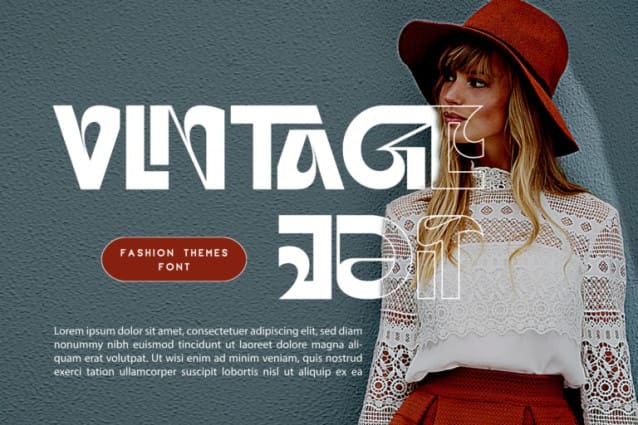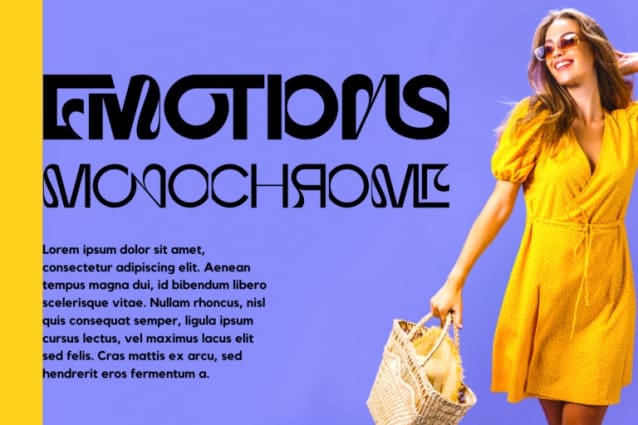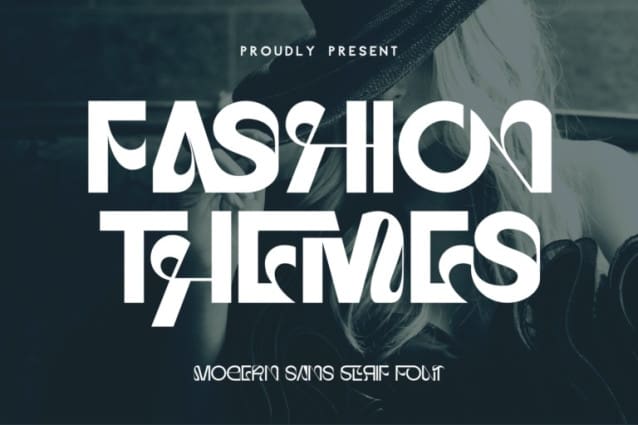
Fashion Themes Font
Fashion Themes Font is modern sans font insprire by modern future theme with geometric details and deep in industrial design principles. The clean, sharp letterforms, combined with open angles—particularly at the ends of certain characters—create a modern, professional look that stands out in any setting.
Fashion Themes Font was built with OpenType features and includes 100 ligatures, alternate, numbers, punctuation, and it also supports other languages.
AC AD AL AN AR AS AT AU AV BE CA CE CH CO CT DE DI EA EC ED EE EL EM EN EP ER ES ET FE FO FR GE HA HE HI HO IE IC IL IN IO IR IS IT JU KE LA LE LI LL LO LY MA ME MI NC ND NE NG NO NT NS OC OF OM ON OO OP OR OT OU OW PA PR RA RD RE RI RO RS RT SE SH SI SO SS ST TA TE TH TI TO TR TT UM UN UR VE WI WO